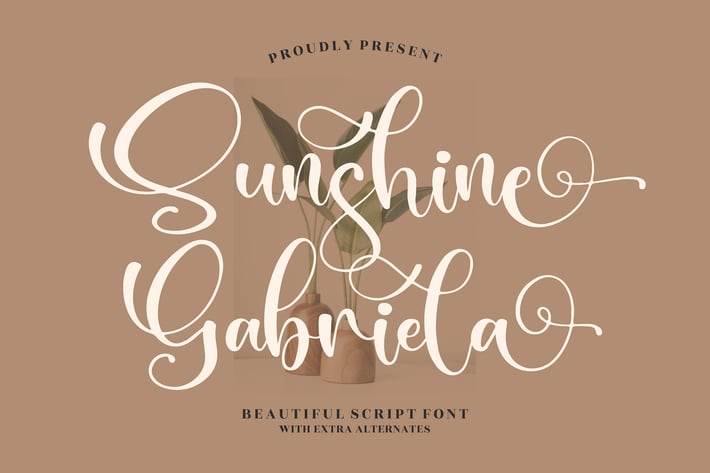
Sunshine Gabriela Script Font
Sunshine Gabriela is a graceful, swashy script that twirls with confident loops and romantic curves. Drawn for modern brands and heartfelt keepsakes alike, it pairs soft, round forms with long, flowing terminals to create that effortless hand-lettered feel. Its refined rhythm keeps headlines elegant and legible while decorative alternates add the extra sparkle for hero words, signatures, and quotes.
+ Uppercase & lowercase A–Z
+ Numerals, punctuation & symbols
+ Stylistic alternates & contextual ligatures
+ Long swashes and underlines for beginnings/endings
+ Optimized letterspacing & kerning for display sizes
Let your words glow—Sunshine Gabriela turns simple text into sun-kissed statements.